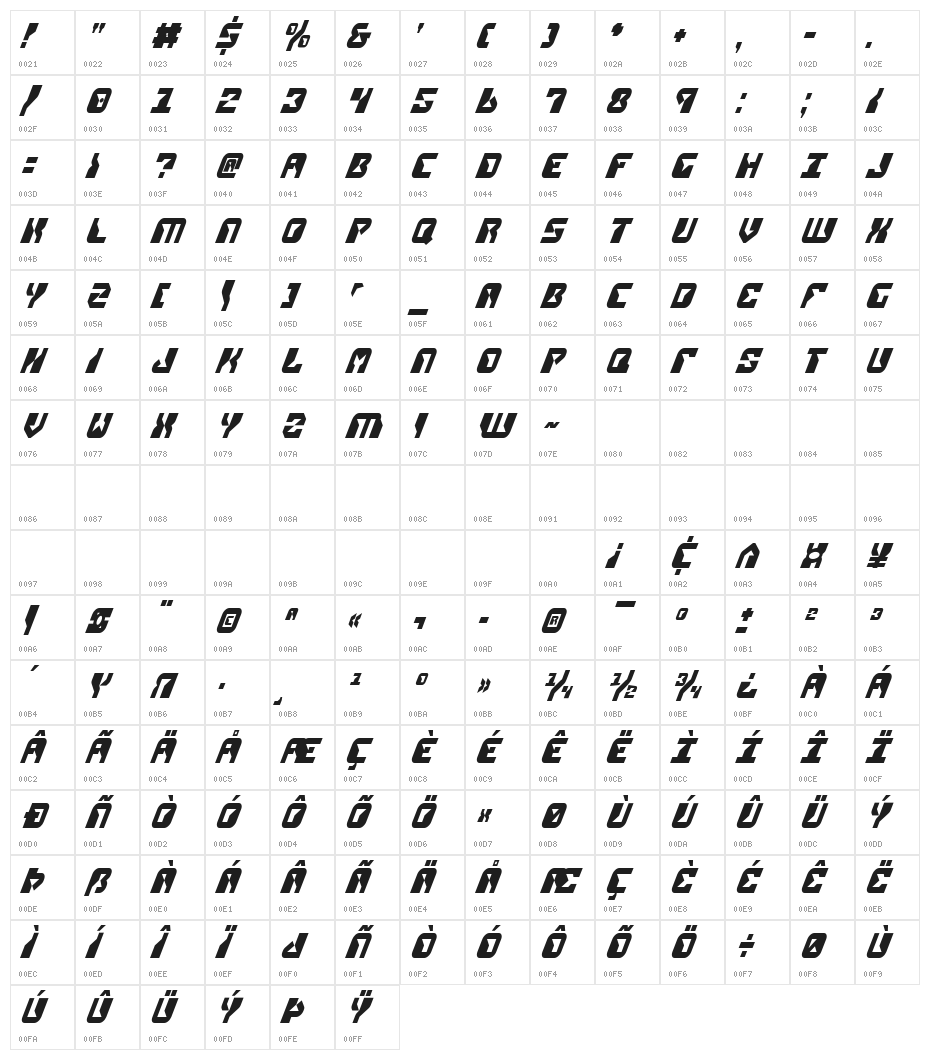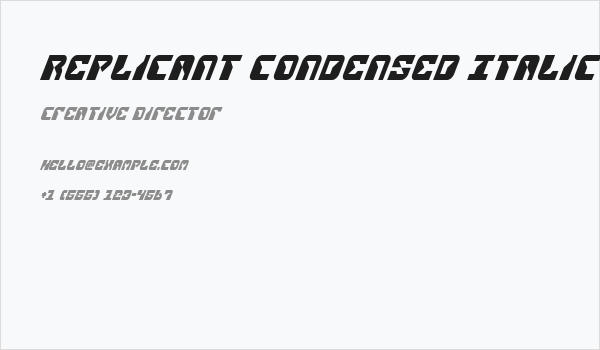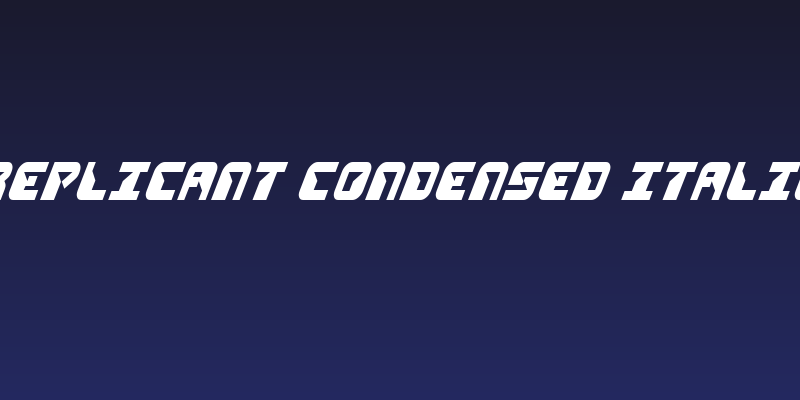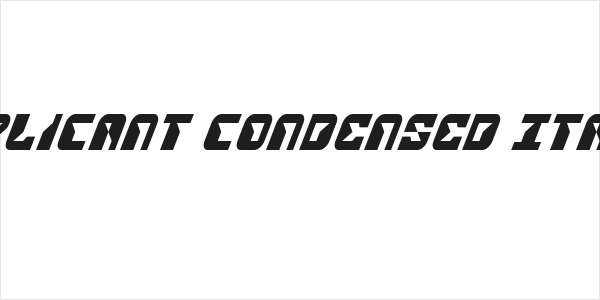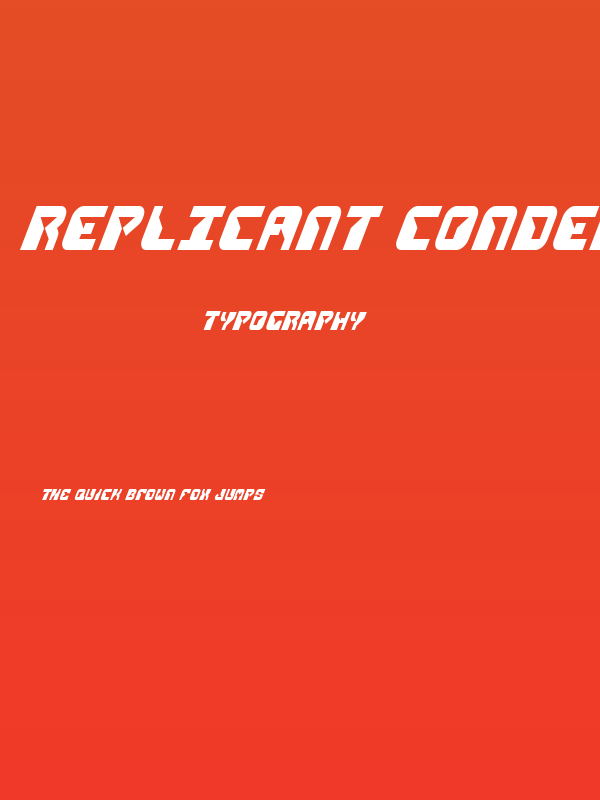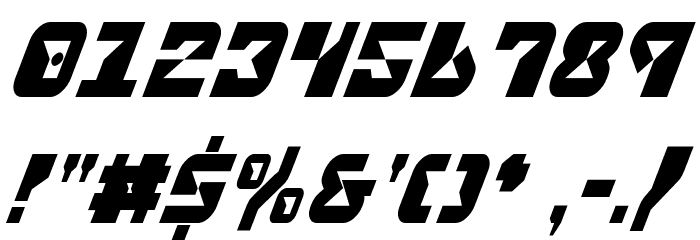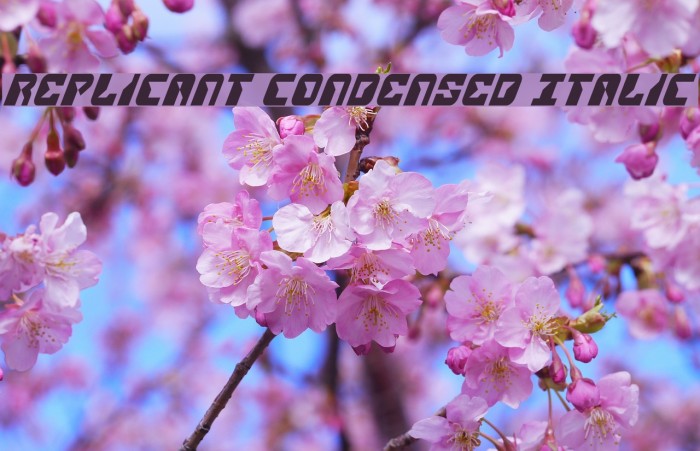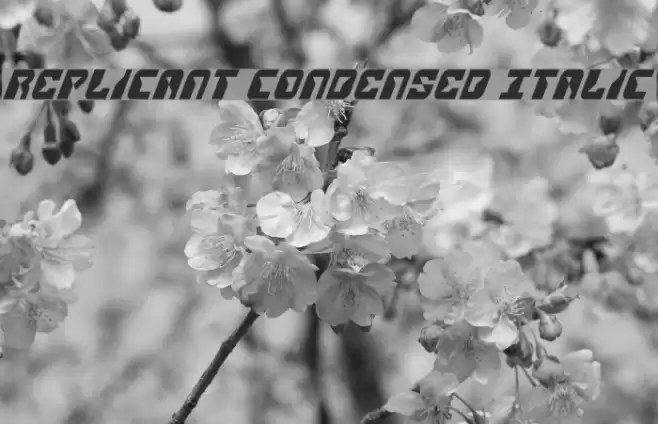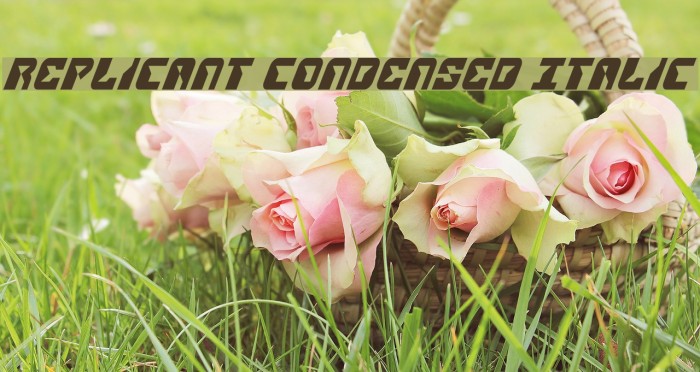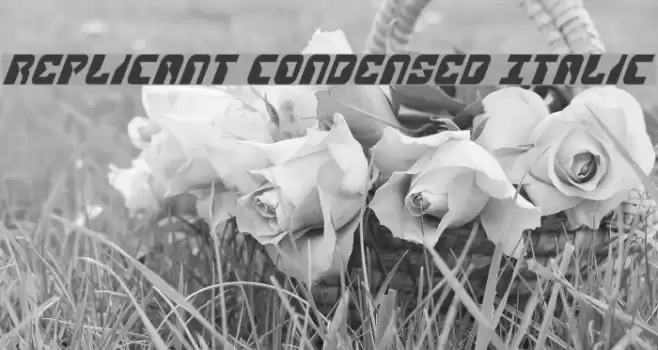
Replicant Condensed Italic Font
Replicant Condensed Italic Description
This font features a futuristic and angular design, characterized by its sharp edges and geometric shapes. The condensed form gives it a compact appearance, while the italic slant adds a dynamic and forward-moving feel. The bold weight enhances its striking presence, making it ideal for attention-grabbing applications. The characters are tightly spaced, contributing to its cohesive and streamlined look. The high contrast between thick and thin strokes further emphasizes its modern and edgy style, making it suitable for projects that require a bold and innovative aesthetic.
| Proposed Projects | Ideal for sci-fi themed posters, video game titles, technology branding, and futuristic advertisements. |